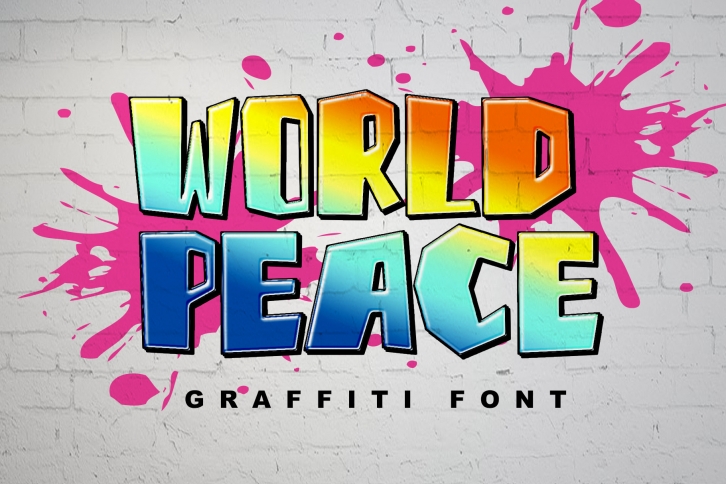
World Peace is an outstanding graffiti styled display font. Urban and incredibly bold, this font will most certainly make your designs instantly stand out. It will add a unique spark to any project that you wish to create!